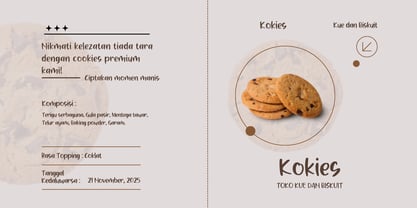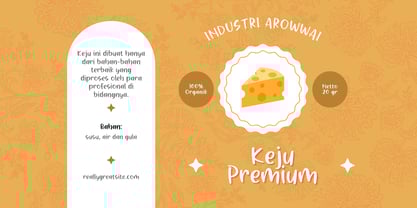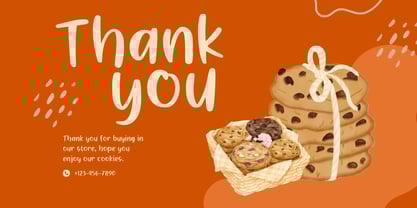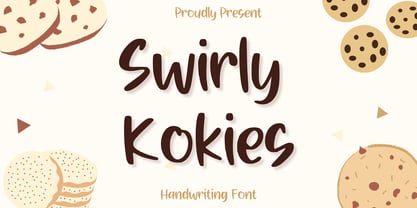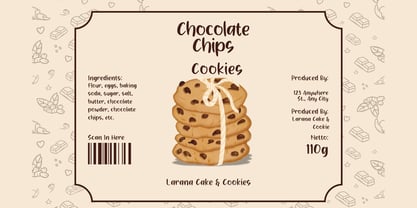
Swirly Kokies
by Aisyah
The Swirly Kokies Font Family was designed by Nur Aiysah Amalia and published by Aisyah. Swirly Kokies contains 1 styles. More about this family
Presenting Swirly Kokies — a charming and delightful font designed to add a touch of whimsy and warmth to your business and branding endeavors. Carefully crafted for creative ventures, this distinctive typeface radiates enchantment through its playful curves and friendly personality. Perfect for logos, packaging, social media, and heartfelt designs, Swirly Kokies brings a sense of joy and creativity to every composition. Let Swirly Kokies breathe life into your design projects and elevate them in the most aesthetically pleasing and memorable way.
Designers: Nur Aiysah Amalia
Foundry: Aisyah